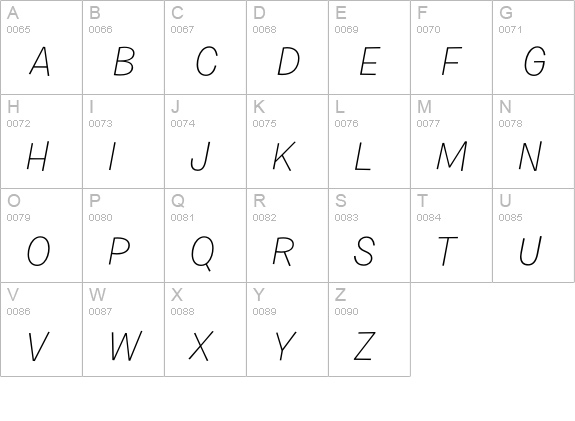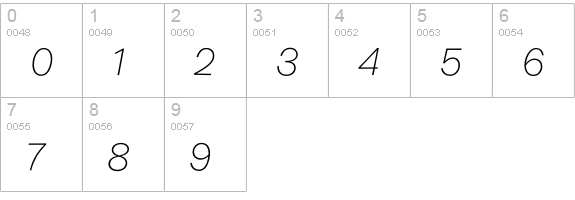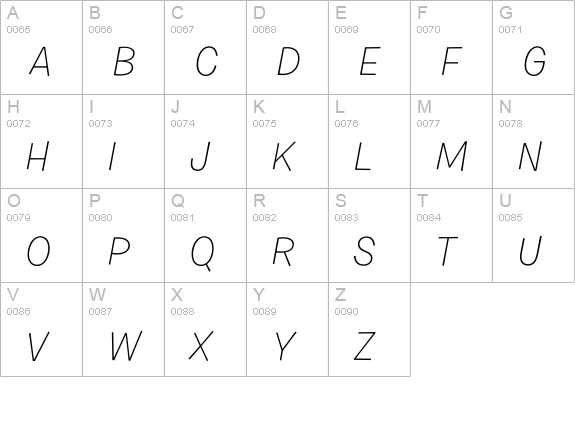
Burbank Small Light Italic Font Details
Burbank Small Light Italic is a refined, elegant, italic variant in the Burbank typeface family \xE2\x80\x94 well suited to elegant body text, refined sub-headings, and luxury branding.
Burbank Small Light Italic font is a modern and elegant typeface that exudes sophistication and style. With its sleek lines and subtle curves, this font is perfect for adding a touch of sophistication to any design project. The light italic weight of Burbank Small adds a delicate and airy quality, making it ideal for conveying a sense of grace and refinement. Best of all, Burbank Small Light Italic font is available for free download at FontsMarket.com. This means you can easily incorporate this beautiful typeface into your work without breaking the bank. Whether you're designing a logo, creating a brochure, or working on a website, Burbank Small Light Italic font is sure to elevate your project and give it a professional and polished look. Download it today and see the difference it can make in your designs!